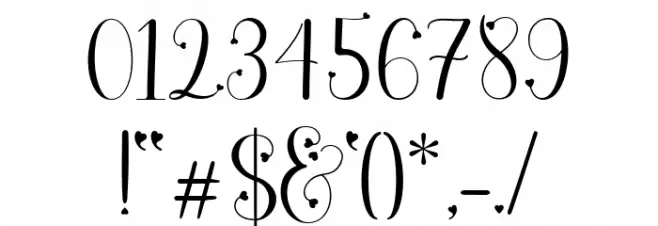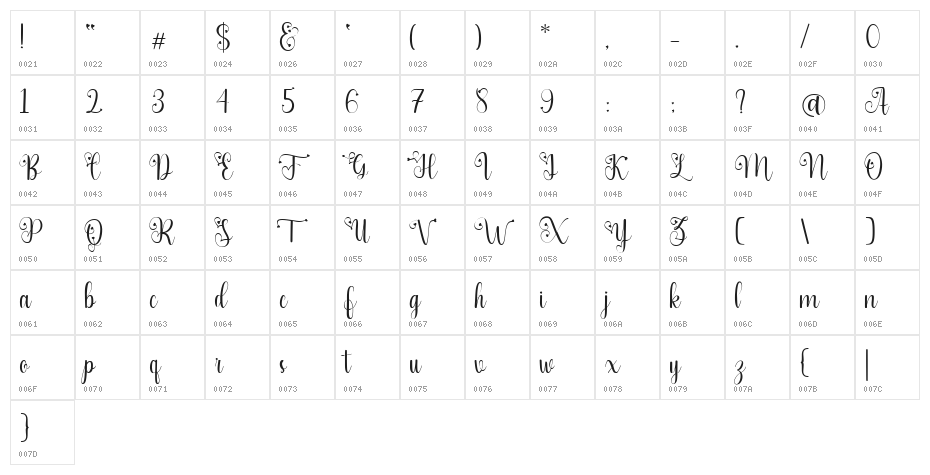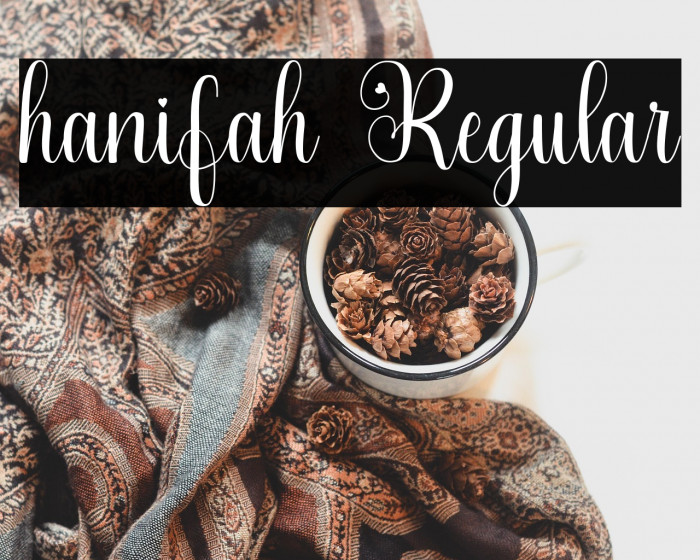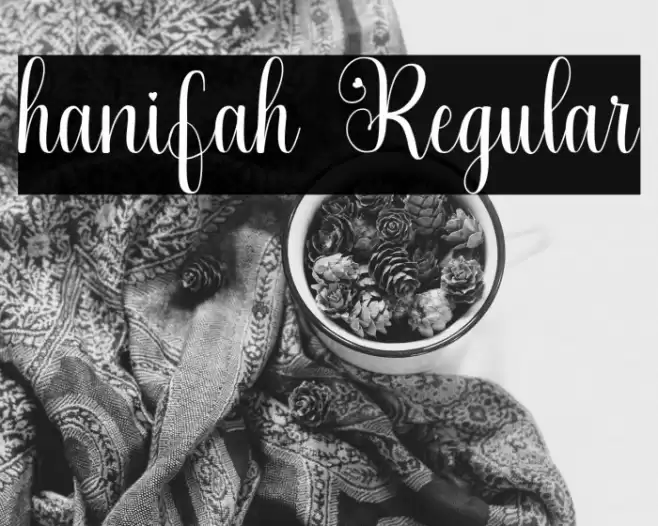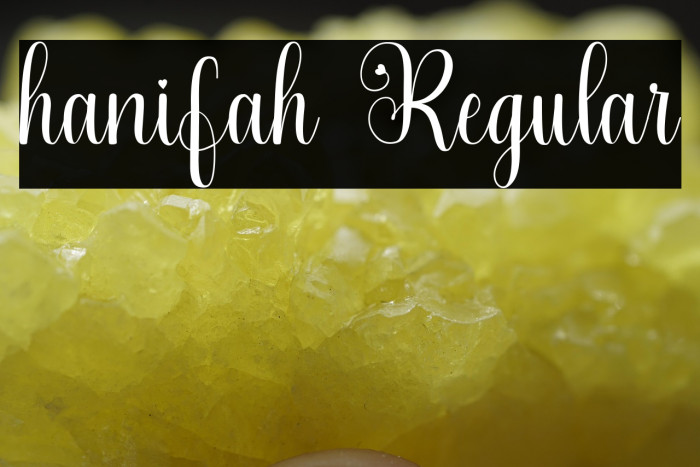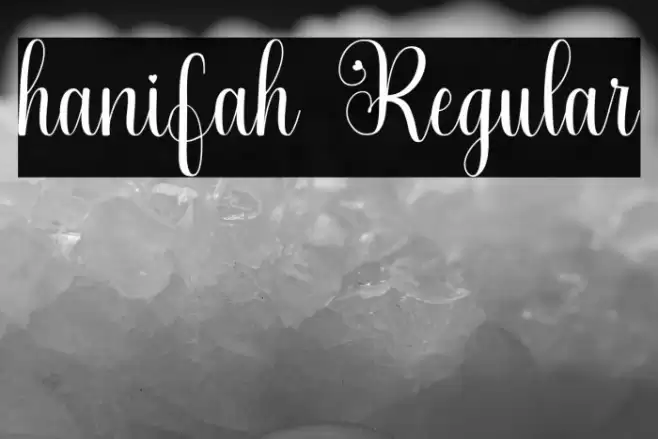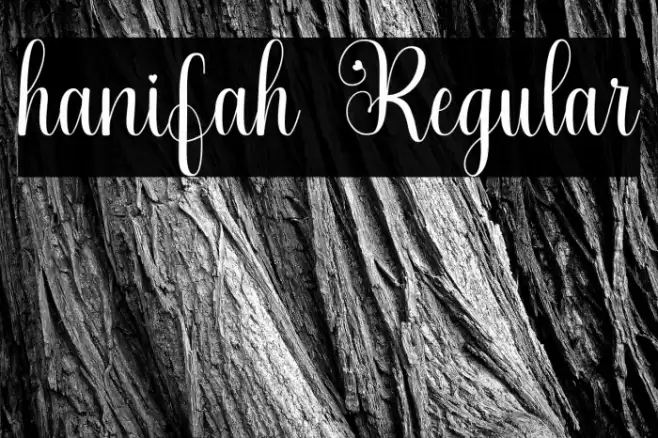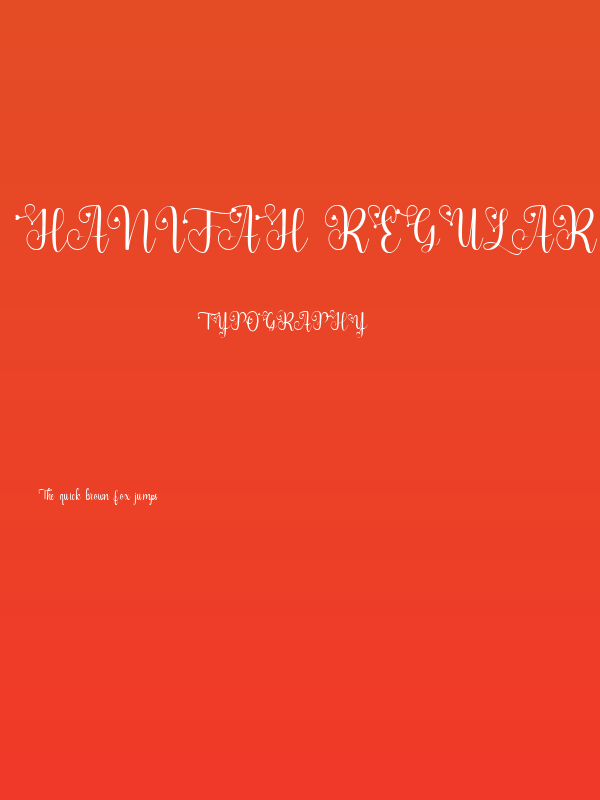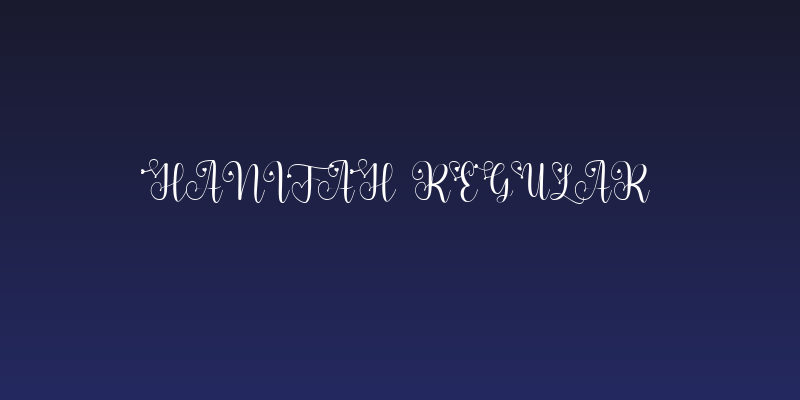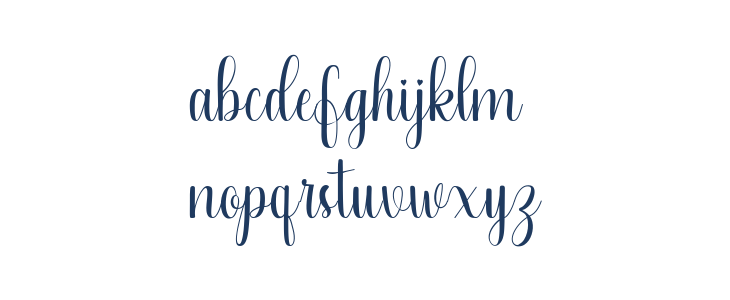
hanifah Regular Font
hanifah Regular Description
This font features an elegant and flowing script style, characterized by its intricate loops and flourishes. The uppercase letters are particularly ornate, with decorative swirls that add a touch of sophistication. The lowercase letters maintain a consistent flow, enhancing readability while still retaining an artistic flair. Numbers and special characters are designed with the same attention to detail, ensuring a cohesive look across all text elements. This font is perfect for projects that require a touch of elegance and creativity.
| Proposed Projects | Ideal for wedding invitations, greeting cards, branding, and decorative projects. |